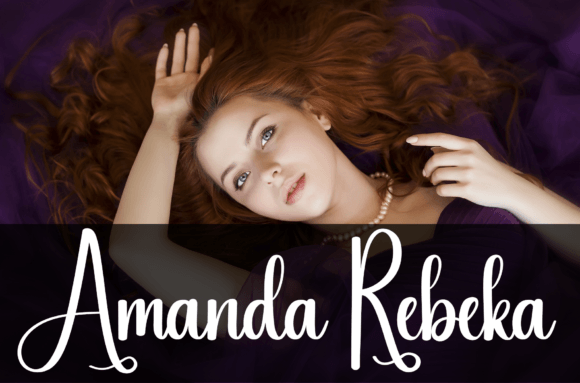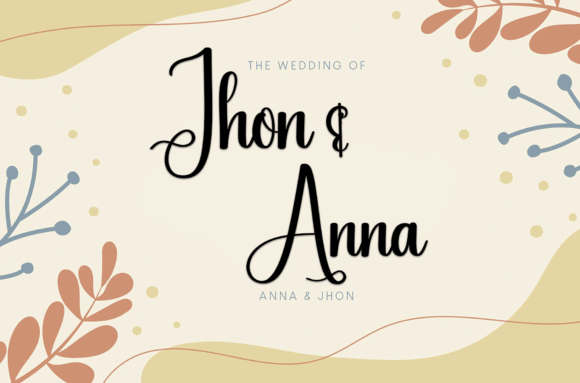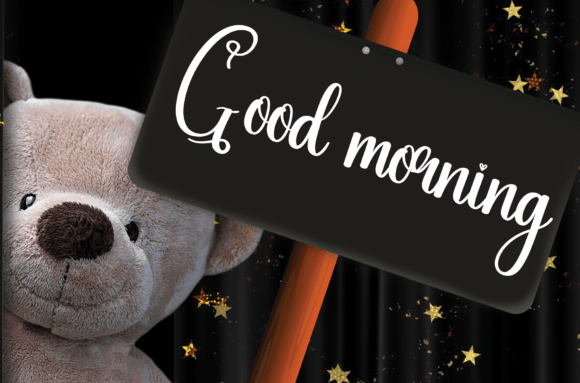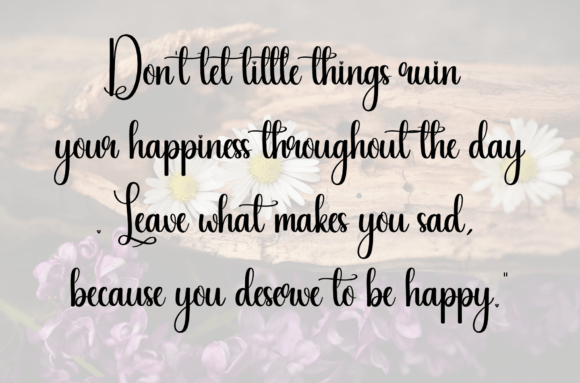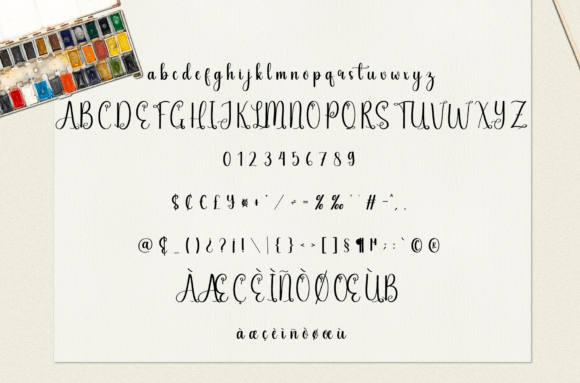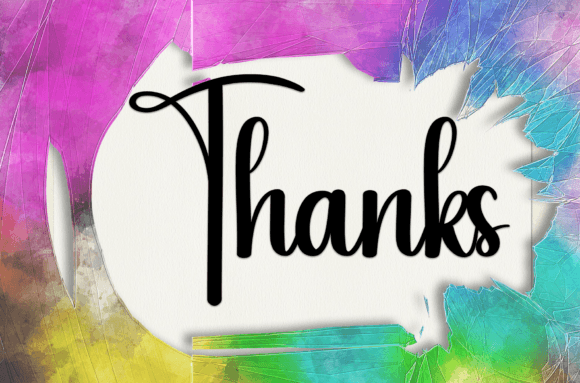
Handsome Font
About Handsome Font
Handsome is a sweet and friendly handwritten font designed to bring warmth and personality to your creative projects. With its smooth lines and casual style, this font feels natural and inviting. Whether you are crafting wedding invitations, greeting cards, or stylish branding, Handsome adds an effortless charm that feels personal and sincere.
A Handwritten Look That Feels Real
The appeal of Handsome lies in its genuine handwritten feel. Each letter is shaped with gentle curves and subtle imperfections that look like real pen strokes. This creates a sense of authenticity that connects with people on an emotional level.
Handsome is perfect for projects where you want to express joy, affection, or gratitude. Its laid-back style instantly makes your text approachable and heartfelt.
Versatile and Ready for Anything
Handsome isn’t limited to one type of project. It’s a flexible font that adapts to many creative uses, including:
• Wedding Invitations: Make your invites feel romantic, warm, and personal.
• Greeting Cards: Celebrate birthdays, anniversaries, and milestones with a handwritten touch.
• Thank-You Notes: Show genuine appreciation with text that feels sincere.
• Social Media Graphics: Create quotes and posts that stand out in a friendly way.
• Logos & Branding: Add a handcrafted look to your brand identity.
• Product Packaging: Label jars, boxes, and tags with a soft, organic vibe.
• Quotes and Wall Art: Share inspiring words in a comforting style.
No matter the project, Handsome makes your designs feel thoughtful and unique.
Design Tips for Handsome Font
Here are a few simple ideas to get the most from this font:
• Combine with Sans Serif Fonts: Balance the playful style with clean, modern typography.
• Use Light Colors: Soft pastels and neutrals highlight the font’s friendly feel.
• Keep it Spacious: Let the letters breathe by using generous spacing.
• Add Small Illustrations: Pair with subtle icons or hand-drawn elements for extra charm.
These small details can make your designs look polished and professional.
Why You’ll Love Handsome
Handsome is more than a font—it’s a way to add heart and authenticity to your words. Its smooth, flowing lines create a casual and welcoming look that feels real and relatable.
From wedding stationery to social media, Handsome helps you share messages that feel warm and joyful. It’s a font you’ll reach for again and again when you want your designs to feel personal and uplifting.
Bring your creative ideas to life with Handsome and discover how a friendly handwritten font can transform any project.